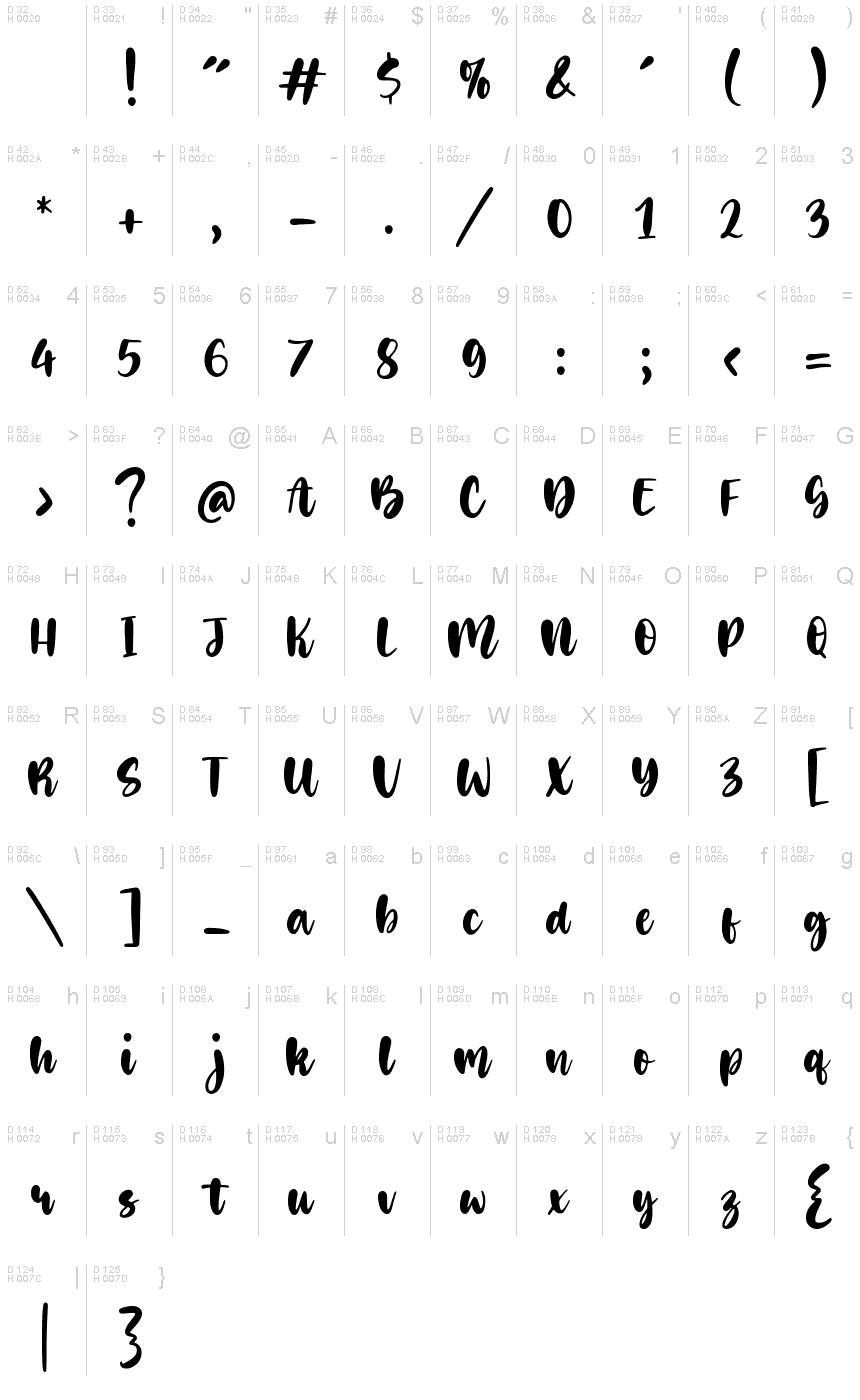
Golden Dates
Introducing Golden Dates, the bold and smooth brush font from Balpirick Studio. Its distinct style gives it an elegant flair, perfect for adding a touch of class to any project. From logos to wedding invitations to printed art, this font will bring your projects to the next level. With its timeless look and modern feel, Golden Dates is ideal for creating sophisticated designs.